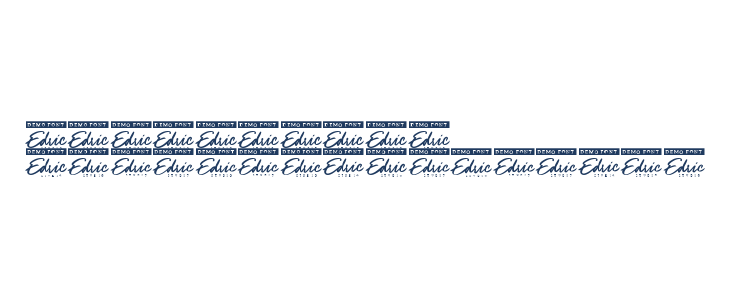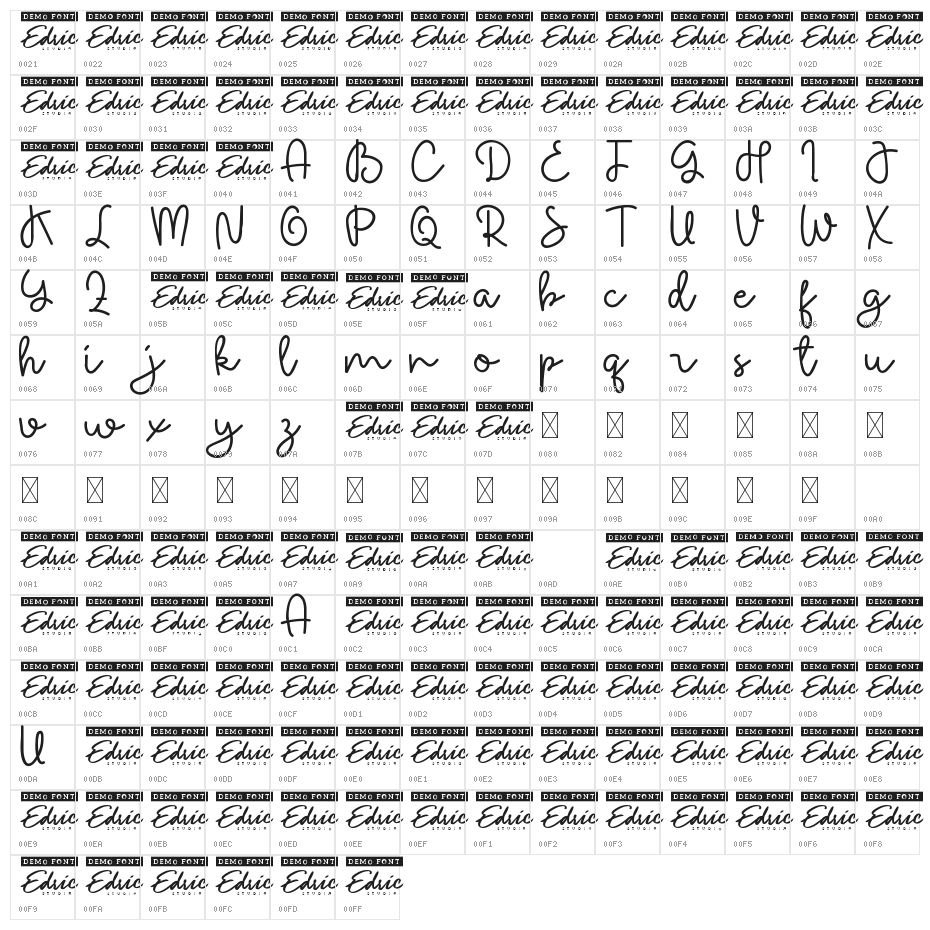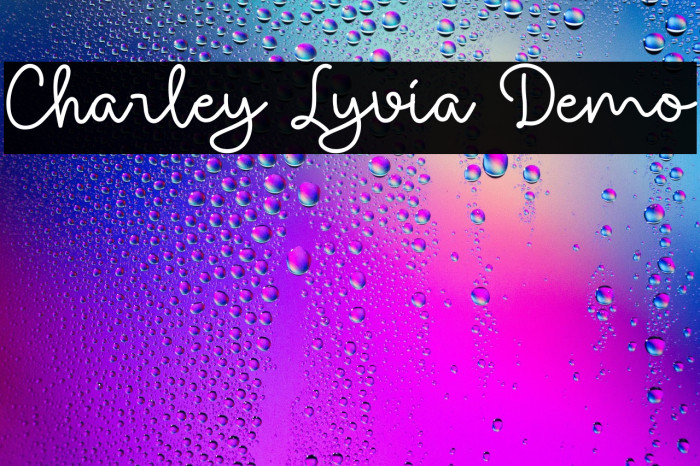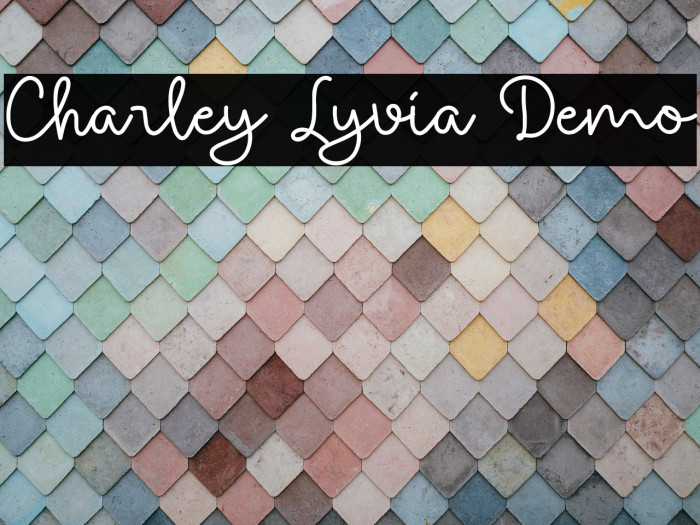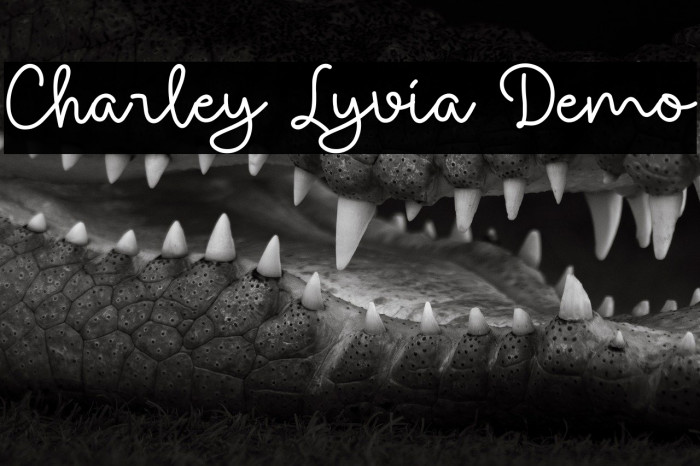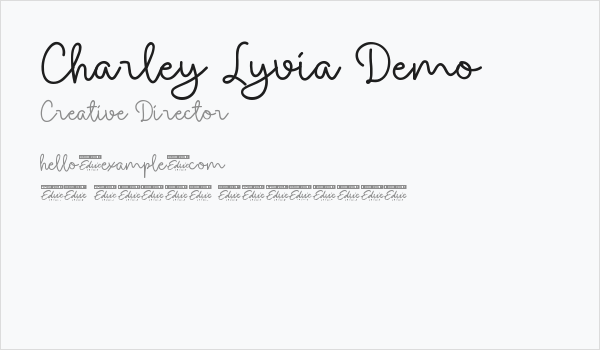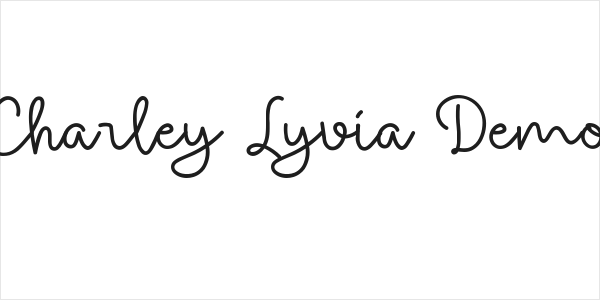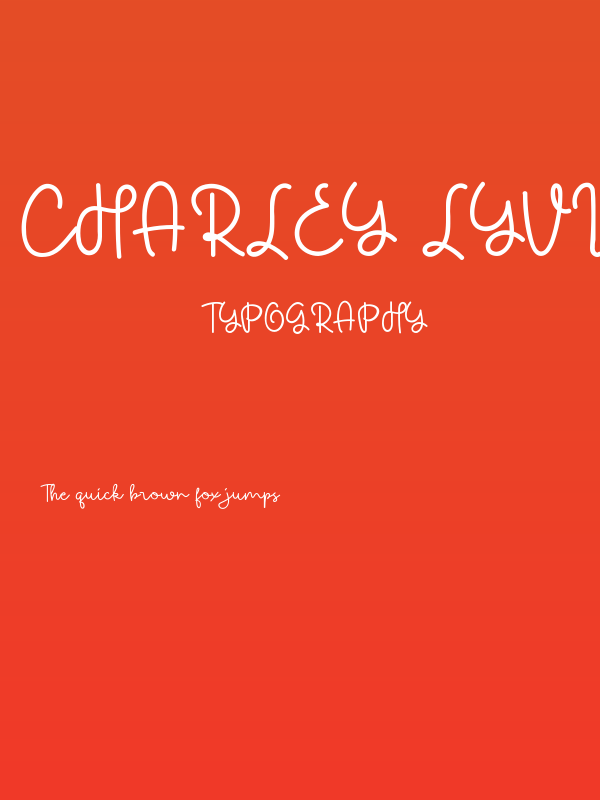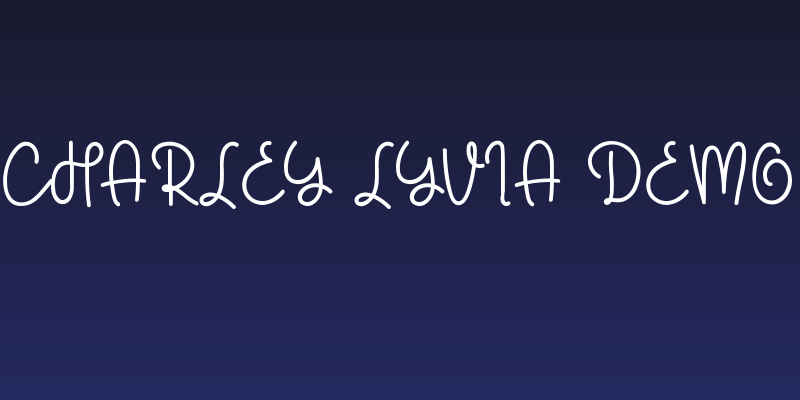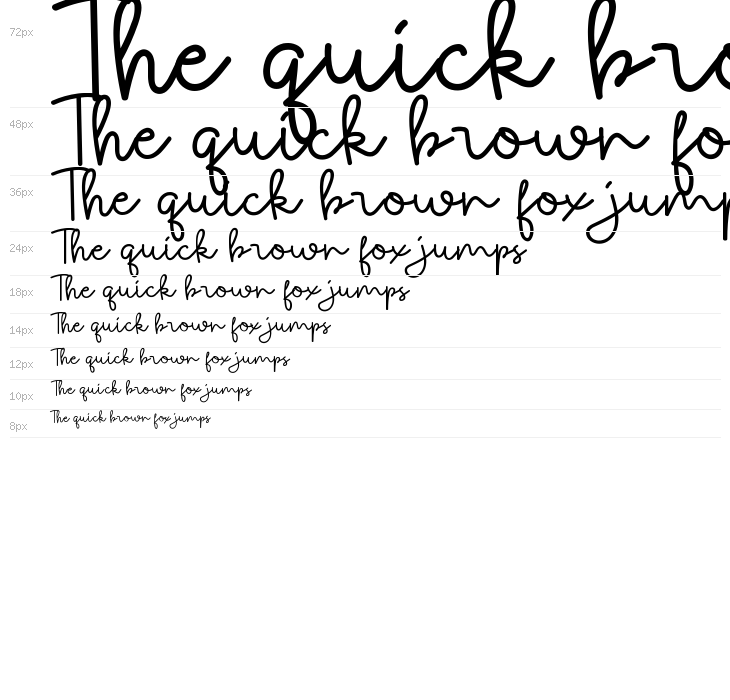
Charley Lyvia Demo Font
Charley Lyvia Demo Description
This font features a playful and flowing script style, characterized by its smooth, cursive strokes and elegant loops. The uppercase letters maintain a consistent height, while the lowercase letters exhibit a charming, handwritten quality. The font's design is both casual and sophisticated, making it suitable for a variety of creative applications. Its fluidity and rhythm give it a lively appearance, perfect for adding a personal touch to any project. The characters are well-spaced, ensuring readability while maintaining the font's artistic flair.